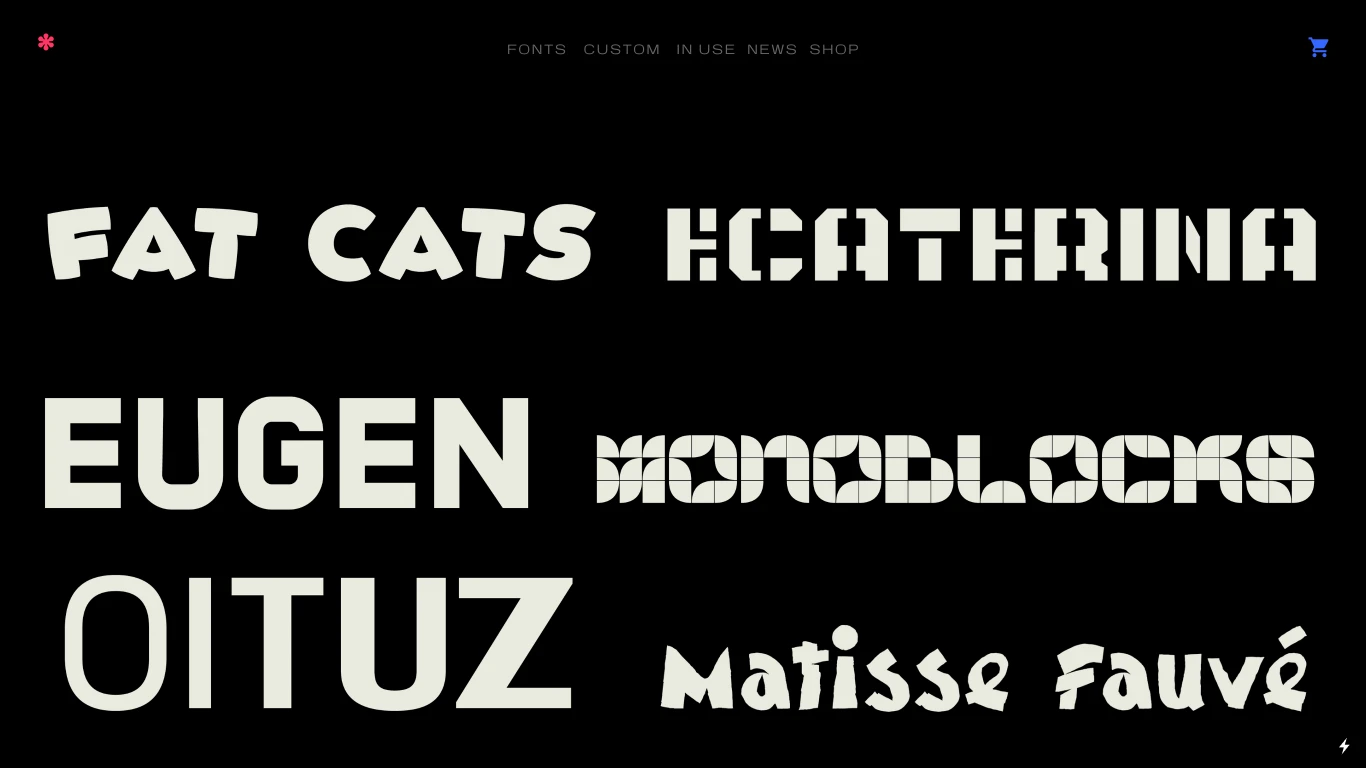
Ograda Type Co.
Romania
2017
Andrei Ograda, a self-taught graphic and type designer from Bucharest, Romania, founded Ograda Type Co. in 2017. The foundry has developed distinctive typefaces such as OTC Hitomi34, a condensed monospaced geometric grotesque inspired by wood type and sign painting; OTC Eugen, a versatile typeface family; OTC Mandalorian, a display typeface inspired by the Star Wars universe; and OTC Leator, known for its strong presence in impactful design projects.